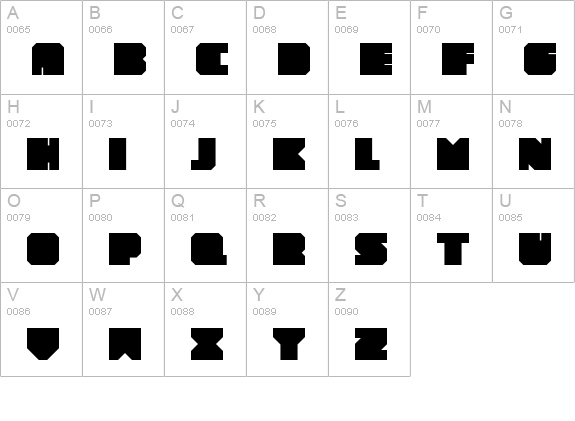
Novum ExtraBold is an extra-heavy, attention-grabbing variant in the Novum typeface family \xE2\x80\x94 well suited to high-impact headlines, posters, and bold branding.
Novum ExtraBold font is a modern and impactful typeface designed to make a bold statement. Its strong and prominent letterforms exude confidence and command attention. Perfect for headings, titles, and other display purposes, Novum ExtraBold adds a touch of sophistication and elegance to any design project. What sets Novum ExtraBold font apart is not just its striking appearance, but also the fact that it is available for free download at FontsMarket.com. This means that you can easily access this high-quality typeface without any cost, making it a valuable addition to your font collection. Whether you're working on branding, advertising, or any other creative project, Novum ExtraBold is a versatile and reliable choice that will help you stand out from the crowd.